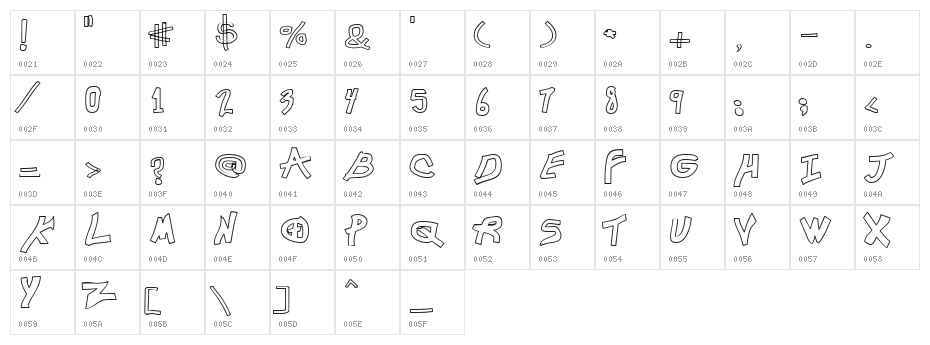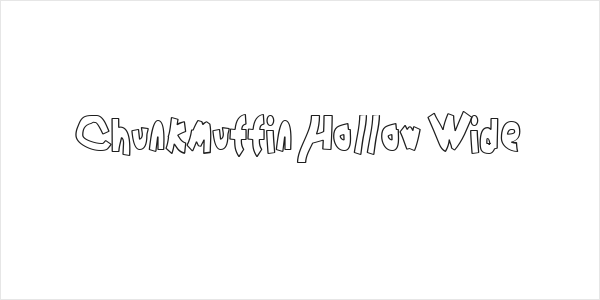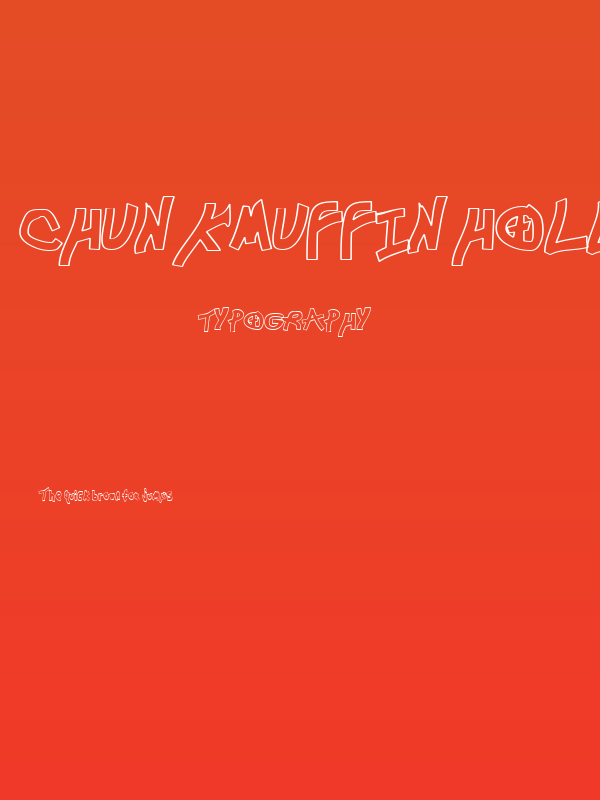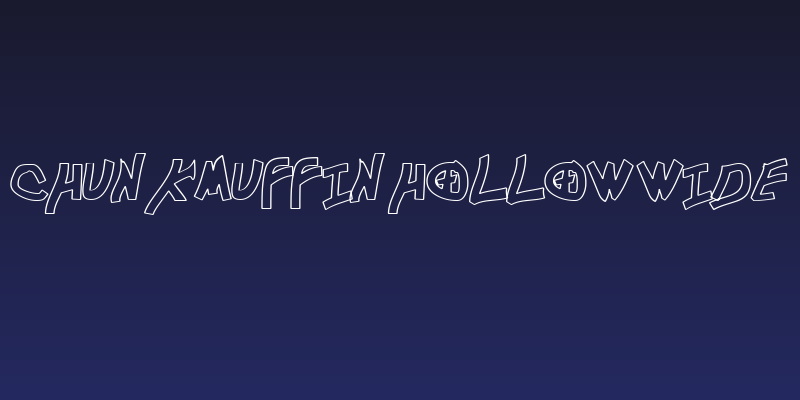
Chunkmuffin Hollow Wide Font
Chunkmuffin Hollow Wide Description
This font features a playful and dynamic style with hollow, wide characters that give it a unique and eye-catching appearance. The letters are bold and slightly irregular, adding a sense of movement and energy. The uppercase and lowercase letters maintain a consistent style, with exaggerated curves and angles that create a whimsical feel. Numbers and special characters are designed with the same playful aesthetic, ensuring a cohesive look across all text elements. The font's hollow design allows for creative use of color and background, making it versatile for various design projects.